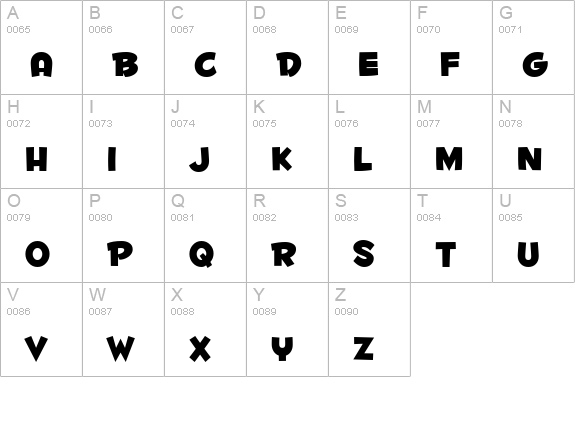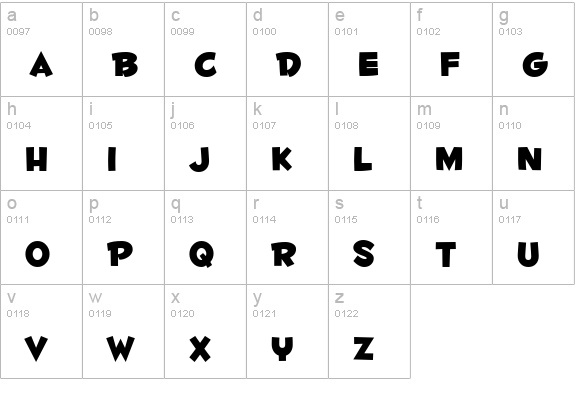
Fontdinerdotcom Huggable Font Details
Introducing Fontdinerdotcom Huggable - a delightful and charming font that exudes warmth and friendliness. With its rounded edges and playful design, this font is perfect for adding a touch of whimsy to any project. Whether you're creating greeting cards, invitations, or social media graphics, Fontdinerdotcom Huggable will bring a smile to your audience's face. And the best part? Fontdinerdotcom Huggable is completely free to download! That's right, you can add this adorable font to your collection at no cost. Simply head over to FontsMarket.com and grab your copy today. Don't miss out on the opportunity to spread joy and cheer with Fontdinerdotcom Huggable - the free font that will make your designs truly huggable!